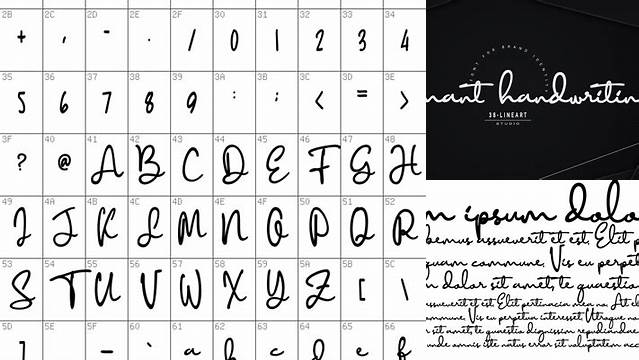
What is Diamant Handwriting Regular?
Hey guys! Ever stumbled upon a font that just screams personality? That's Diamant Handwriting Regular for you. It's a typeface that mimics the look and feel of, well, actual handwriting! Think of it as that cool friend who always has the best notes in class – neat, legible, but with a definite flair. Diamant Handwriting Regular isn't just another font; it’s a digital representation of authentic script. Its strokes and curves emulate the nuances of handwritten text, making it an excellent choice for projects that require a personal touch. Unlike stiff, formal fonts, it has a relaxed, approachable vibe, ideal for invitations, creative designs, and branding that wants to convey warmth and authenticity.
So, why would you even want a handwriting font? Simple! It adds a personal touch to your projects. In a world saturated with sleek, digital designs, a handwritten font can make your message stand out. Imagine using it for wedding invitations, greeting cards, or even your website's logo. It brings a sense of warmth and authenticity that's hard to replicate with other fonts. Diamant Handwriting Regular is designed to be versatile, making it suitable for both print and digital media. Whether you're designing a poster, creating a digital advertisement, or writing a blog post, this font can help you create a visually appealing and engaging experience. Plus, it's a great way to add some character to your work without spending hours perfecting your own handwriting. This font provides a readily available and professional-looking alternative, ensuring your designs are both personal and polished. In essence, Diamant Handwriting Regular bridges the gap between the digital and the personal, offering a unique way to connect with your audience.
Key Features of Diamant Handwriting Regular
Okay, so what makes Diamant Handwriting Regular so special? Let's dive into its key features. First off, its legibility is top-notch. Some handwriting fonts can be a real pain to read, but Diamant strikes a great balance between style and clarity. You get the handwritten feel without sacrificing readability, which is super important. Another standout feature is its versatility. This font isn't a one-trick pony; you can use it for a wide range of projects. From formal invitations to casual blog posts, it adapts beautifully. It supports a variety of characters, including uppercase and lowercase letters, numbers, punctuation marks, and special symbols. This comprehensive character set allows you to express your creativity without limitations, ensuring that you can accurately convey your message in any context. This font includes stylistic alternates and ligatures that add realism to your text. These features mimic the variations and connections that naturally occur in handwriting, making the font look even more authentic. The inclusion of swashes and decorative elements can further enhance your designs, adding a touch of elegance and flair. You can customize the font to fit your specific needs and preferences. Adjust the letter spacing, kerning, and line height to achieve the perfect look for your project. Whether you need a compact design or a more spacious layout, Diamant Handwriting Regular offers the flexibility to adapt to your requirements.
Using Diamant Handwriting Regular in Your Projects
Okay, so you've got Diamant Handwriting Regular installed – awesome! Now, let's talk about how to actually use it in your projects. One of the best things about this font is its versatility, but that also means you need to think about how to best apply it. Think about the tone and message you want to convey. Is it formal, casual, playful, or serious? The font should complement your overall design and reinforce the intended message. For example, if you're designing a wedding invitation, you might want to use Diamant Handwriting Regular for the names of the bride and groom. Its elegant and personal touch can add a sense of romance and sophistication to the design. For a casual blog post, you might use it for headings or quotes to add a touch of personality and visual interest. Experiment with different sizes, weights, and colors to see what works best for your design. Don't be afraid to mix and match it with other fonts to create a unique and balanced look. One common mistake is to overuse handwriting fonts. While they can add a personal touch, using them for large blocks of text can make your design look cluttered and unprofessional. Instead, use Diamant Handwriting Regular sparingly for headings, titles, or short quotes. This will help to maintain readability and prevent your design from becoming overwhelming. Before you finalize your design, always test it on different devices and browsers to ensure that the font renders correctly. This is especially important for web designs, as fonts can sometimes appear differently depending on the browser and operating system. If you encounter any issues, you may need to adjust the font settings or use a web-safe alternative. And that's it! With a little practice and experimentation, you'll be using Diamant Handwriting Regular like a pro in no time. Have fun creating!
Diamant Handwriting Regular vs. Other Handwriting Fonts
So, there are tons of handwriting fonts out there. What makes Diamant Handwriting Regular stand out from the crowd? Well, a few things. First, its legibility, as we've mentioned before, is a major plus. Some handwriting fonts go so overboard with the